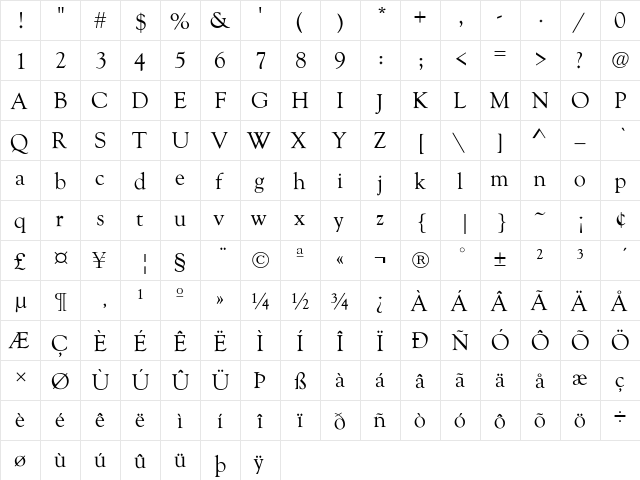
Goudy-Old-Style-Normal Regular
Design Context for Goudy-Old-Style-Normal Typeface
Goudy-Old-Style-Normal takes a measured approach to typography — its balanced proportions and neutral character make it a reliable workhorse for both digital and print work.